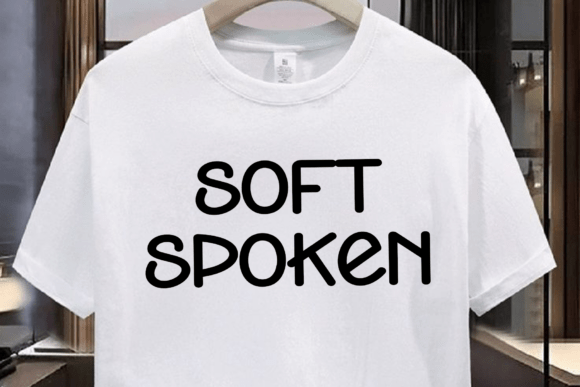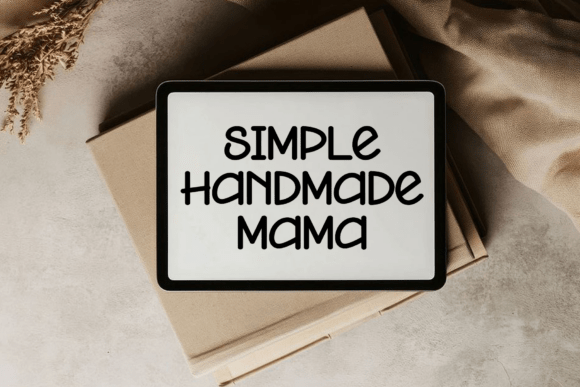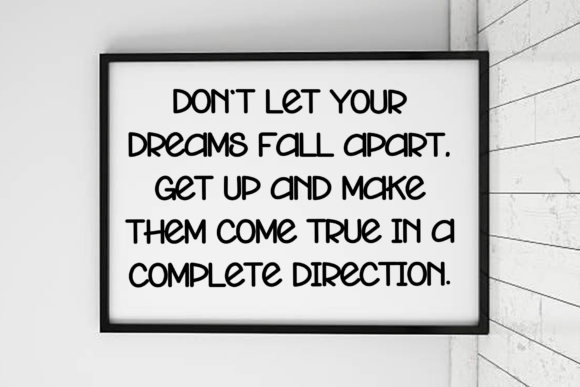
Introduction to Grateful Memories Font
Do you remember the moment when you stumbled upon the perfect font for your creative project? The one that instantly elevated your design from good to great? For many designers, this moment is a game-changer. It’s the spark that ignites a chain of creative ideas, and sets their work apart from the rest. One such font that can make this magic happen is the Grateful Memories Font – a stunning display font that exudes warmth, friendliness, and a dash of modernity.
What makes Grateful Memories Font so valuable for designers is its incredible versatility. With its clean lines, balanced letterforms, and subtle rounded edges, it effortlessly adapts to any design context – from branding and packaging to digital content and more. Whether you’re looking for a high-quality font for a commercial project or a free download for a personal creative pursuit, Grateful Memories Font delivers with its crisp structure and inviting vibe.
Key Features of Grateful Memories Font
- High-quality, unique design ideal for creative projects and personal use, available for free download.
- Comes with a transparent background, making it easy to overlay on any image or design.
- Perfect for designers and artists looking for a free design resource that adds a personal touch to their work.
- Unique, handcrafted design elements that evoke feelings of gratitude and appreciation.
- Easy to use and customize, making it a valuable asset for any creative project.
Honest Review: Grateful Memories Font
I recently stumbled upon the Grateful Memories Font and I must say it’s been a game-changer for my creative project. The font is a beautiful, high-quality addition to any design resource.
What works well is the fact that it’s available for a free download, making it a fantastic resource for designers on a budget. The font itself is stunning, with a clean and elegant design that’s perfect for a variety of creative projects.
Some of the key features that stand out include:
- High-quality design with a transparent background, making it easy to overlay on any image
- Perfect for use in scrapbooking, journaling, and other creative projects
⚠️ One limitation is that the font may not be suitable for use in large blocks of text, as it’s best suited for headings and titles. Additionally, some users may find the font a bit too ornate for certain designs.
Overall, I’m thoroughly impressed with the Grateful Memories Font and I highly recommend it to any designer looking for a high-quality, free design resource. It’s a fantastic addition to any design collection and I’m sure I’ll be using it again and again in my future projects. ✨
For the most out of the Grateful Memories Font, use it in a variety of creative projects, such as invitations, posters, and social media graphics. This font is especially useful for free download and use in digital designs, where a transparent background is beneficial.